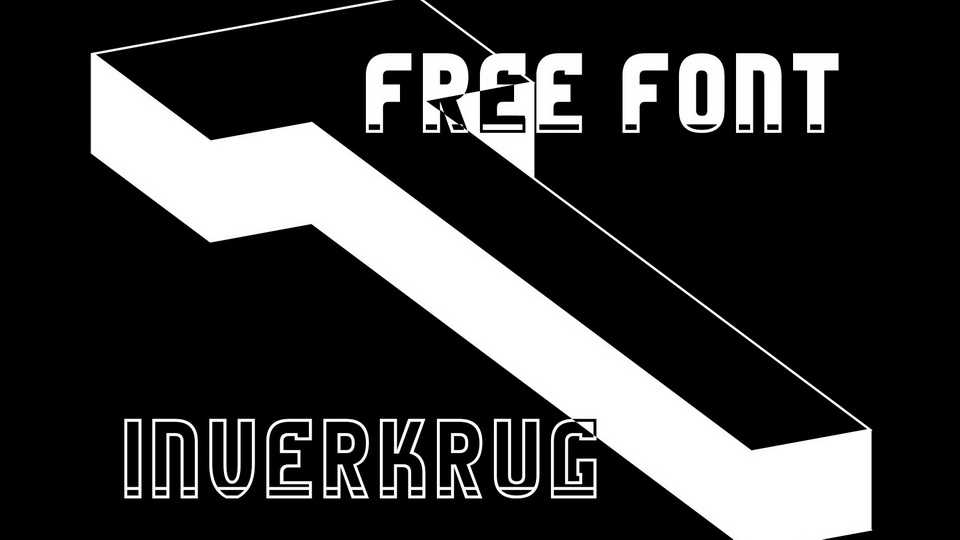
Download Inverkrug font, a display typeface inspired by the right rounds and combinations. Inverkrug is not perfect for any project.
Designer: Maxim Raikov